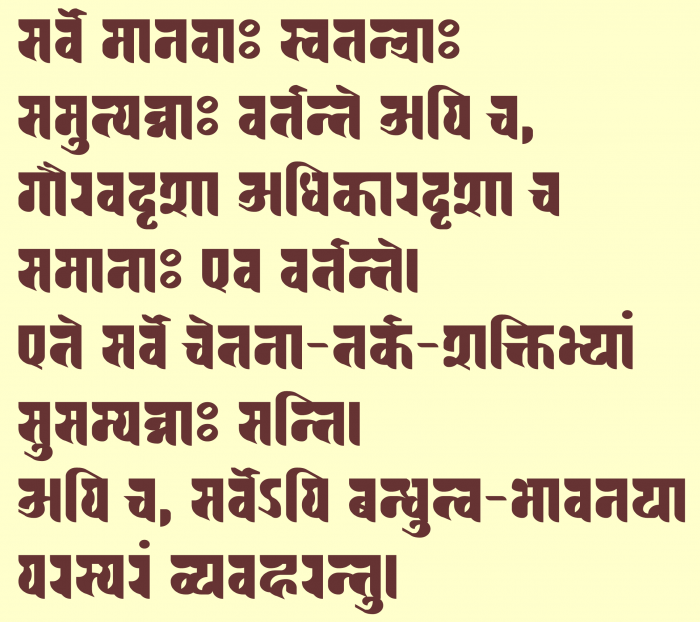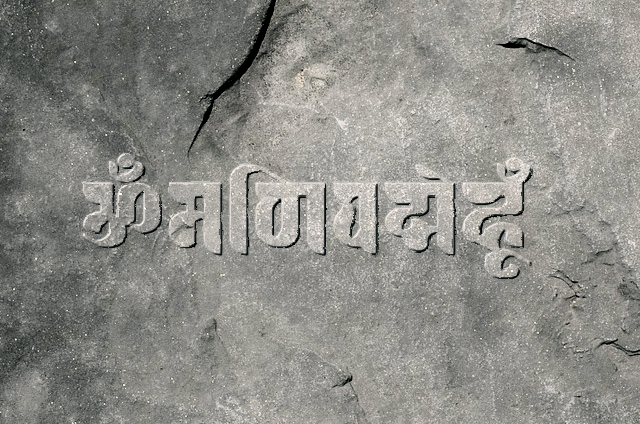
Non-unicode Devanagari clip font. It uses the same layout as KF Kiran fons. bha dha tha may look prettier if you use danda instead of a. The design of the letterforms were inspired by Ranjana script.
The reason I am not using unicode codepoints is because ligatures and diacritic placement are crucial in Devanagari, which are not supported by fontstruct.
using a pre-established tradition of clip fonts is better than making a half-unicode supported font, because it is easier to type (because it's literally latin and latin extended) and I dont think I can access PUA via vanilla fontstruct
I made it a clipfont for a reason. I was just clarifying because the last time I made a clipfont someone commented how useless it was to be a non unicode font and how devanagari is fully supported in unicode and how unicode was fully supported by fontstruct. However this is not the case. Devanagari ligatures are not optional like latin, where you can easily read texts that dont use ligatures. Devanagari ligatures are an essential part of the writing system and cannot be substituted with simple rendering. If I were to use PUA for half forms and conjuncts, it would be much bothersome to type, because conjuncts occur very frequently in Devanagari. I chose to make a clipfont for a reason and I have considered all options I could think of, and clipfont was the best option I could think of. I am not looking for encoding ideas.
something about making curves in a grid just tickles my brain, great work! i also wish ff can provide more detailed control on ligatures and diacritics, in the POJ hokkien romanization theres this O͘ letter, which does not exist as a single code point in unicode, and plus the tones, theres also the eighth tone mark ◌̍, tonal languages like this requires combining diacritics, without the option for anchor, at least one of G̃ and g̃ has to look weird, i think its such a shame
# ऽ
$ त्त्
% ऱ्
& ज्ञ्
* ॐ
+ ह्य
0 ०
1 १
2 २
3 ३
4 ४
5 ५
6 ६
7 ७
8 ८
9 ९
: ः
= हृ
A अ
B भ्
C छ
D ड
E श् (above variant)
F फ्
G घ्
H ह्
I ी
J झ्
K ख्
L ळ
M ं
N ण्
O ै
P ऋ
Q ध्
R ृ
S श्
T ट
U ू
V ॅ
W क्
X क्ष्
Y ष्
Z ढ
[ इ
\ ्
] ka/ru/etc right leg
^ stemless rakar
_ repha
` rakar
a ा
b ब्
c च्
d द
e ए
f फ
g ग्
h ह
i ि
j ज्
k क
l ल्
m म्
n न्
o े
p प्
q थ्
r र
s स्
t त्
u ु
v व्
w ळ्
x space filler
y य्
z ठ
{ उ
| ।
} ruu vowel
~ त्र्
È ङ
É ञ्
Ê marathi ल
Ë connecting ्य
Ì older श्
Í ऌ
Ñ न्न्
Ò द्य
Ó द्व
Ô द्ध
Õ द्द
Ö द्म
× ट्ट
Ø ट्ठ
Ù ड्ड
Ú ड्ढ
Û ठ्ट
Ü ह्र
Ý ह्म
Þ ़
à ॑
á ॒
â ₹
The reason I am not using unicode codepoints is because ligatures and diacritic placement are crucial in Devanagari, which are not supported by fontstruct.
Use the Private Use area for ligatures, half-forms, variant forms, left-facing diacritics, and other stuff.
using a pre-established tradition of clip fonts is better than making a half-unicode supported font, because it is easier to type (because it's literally latin and latin extended) and I dont think I can access PUA via vanilla fontstruct
I made it a clipfont for a reason. I was just clarifying because the last time I made a clipfont someone commented how useless it was to be a non unicode font and how devanagari is fully supported in unicode and how unicode was fully supported by fontstruct. However this is not the case. Devanagari ligatures are not optional like latin, where you can easily read texts that dont use ligatures. Devanagari ligatures are an essential part of the writing system and cannot be substituted with simple rendering. If I were to use PUA for half forms and conjuncts, it would be much bothersome to type, because conjuncts occur very frequently in Devanagari. I chose to make a clipfont for a reason and I have considered all options I could think of, and clipfont was the best option I could think of. I am not looking for encoding ideas.
I can't read it at all...but it looks stunning visually.
something about making curves in a grid just tickles my brain, great work! i also wish ff can provide more detailed control on ligatures and diacritics, in the POJ hokkien romanization theres this O͘ letter, which does not exist as a single code point in unicode, and plus the tones, theres also the eighth tone mark ◌̍, tonal languages like this requires combining diacritics, without the option for anchor, at least one of G̃ and g̃ has to look weird, i think its such a shame
This is like Cooper Black but in Devangari
@JingYo It’s a big set of challenges, but improving support for non-latin scripts is a priority for the next year.
Same. I'd like to see better diacritic placement, including supporting Indic diacritics placed to the left of letters.